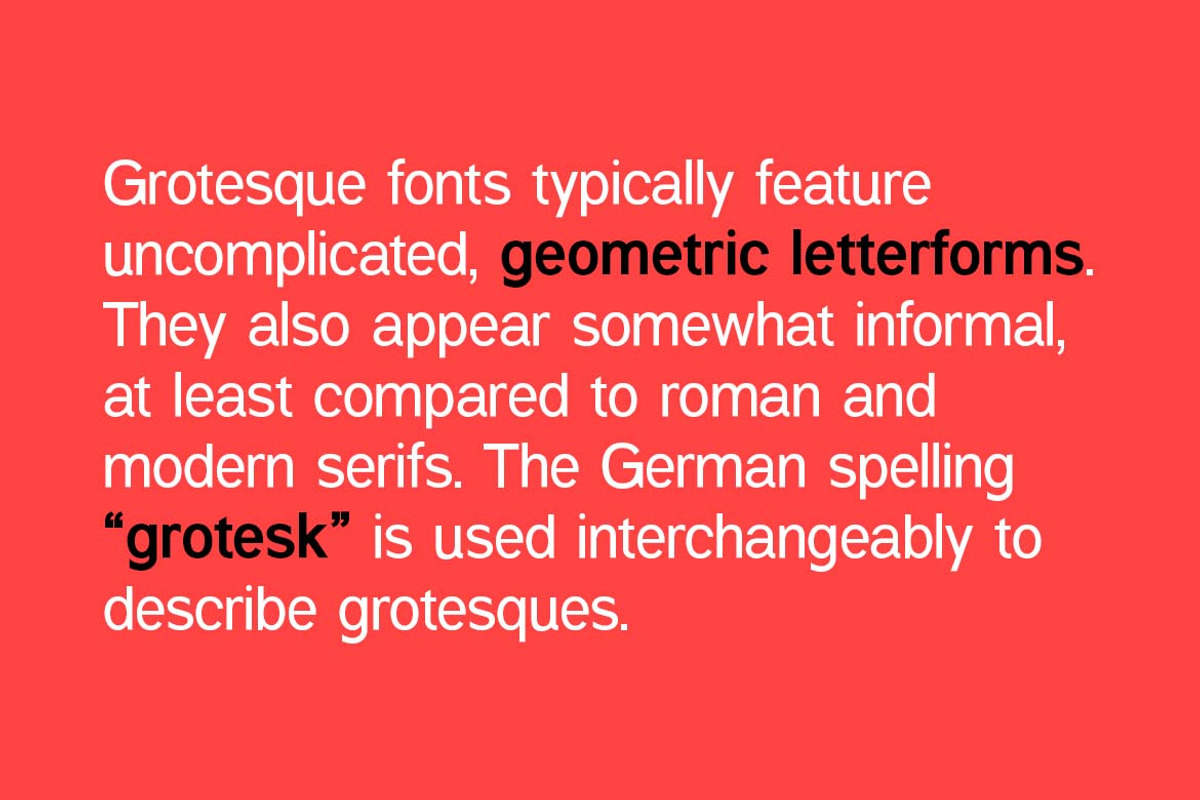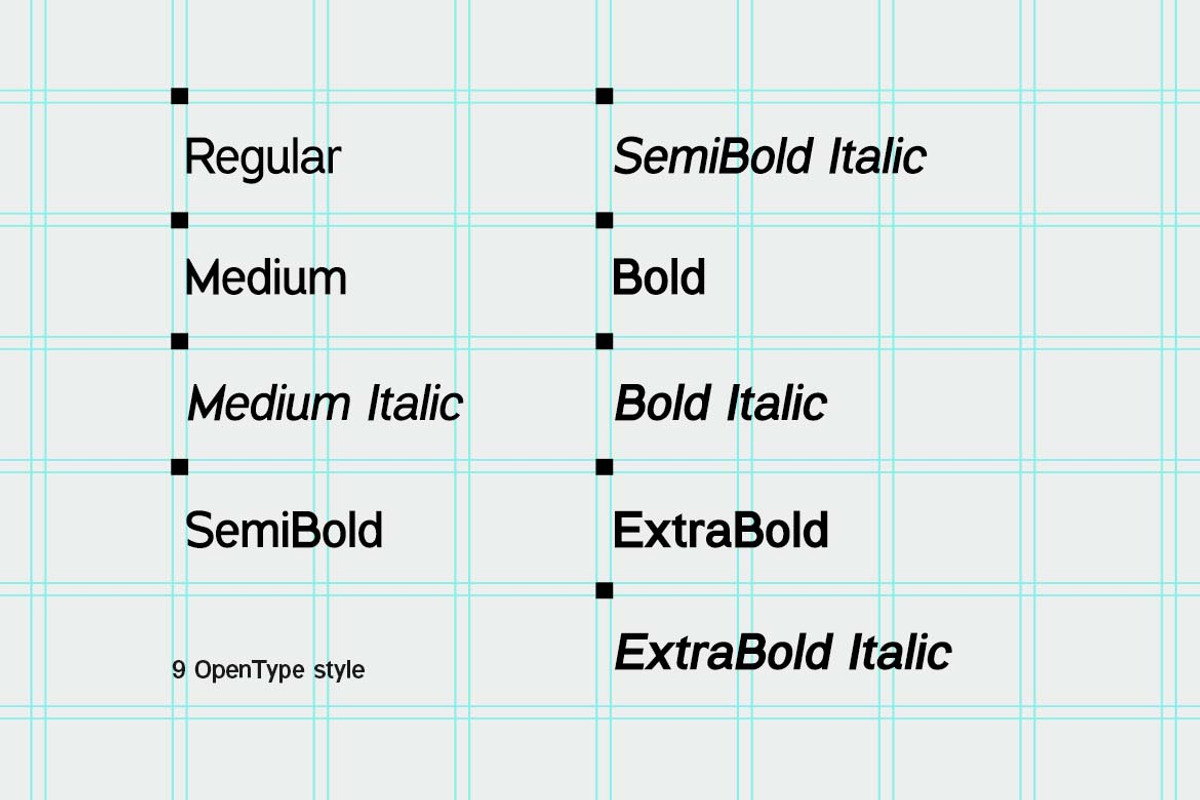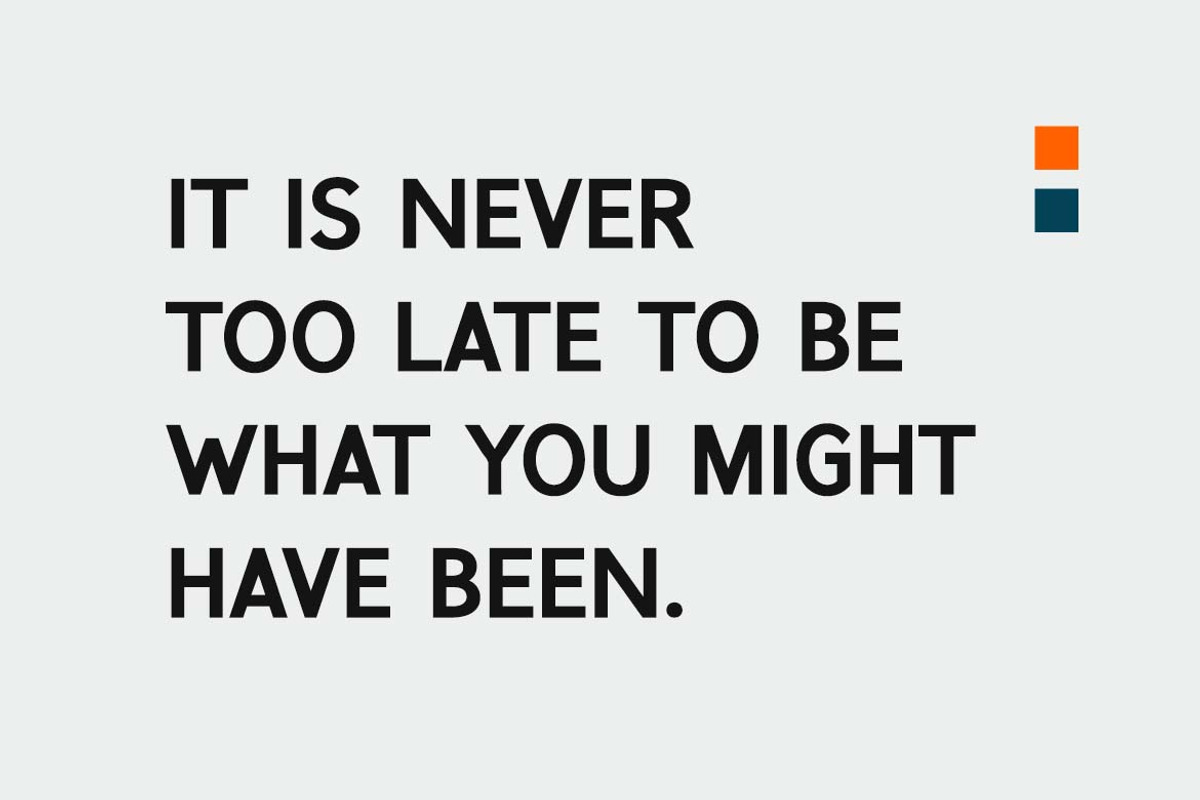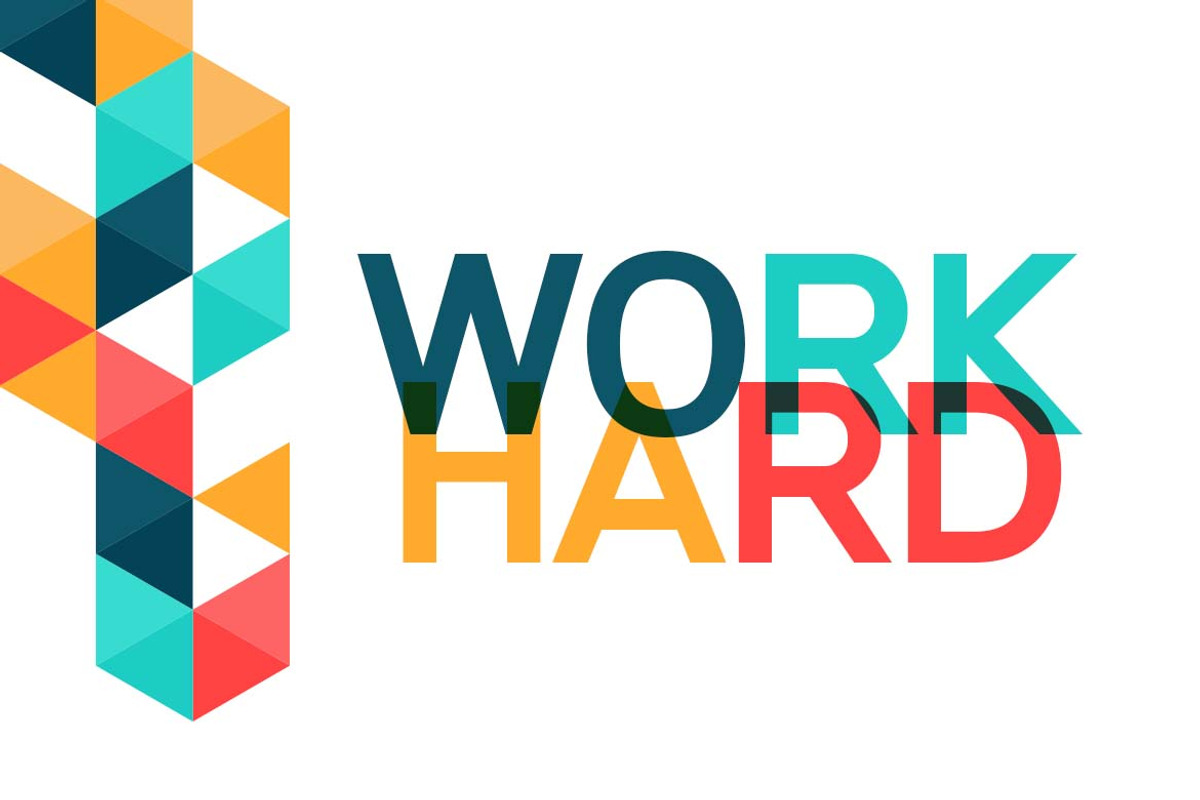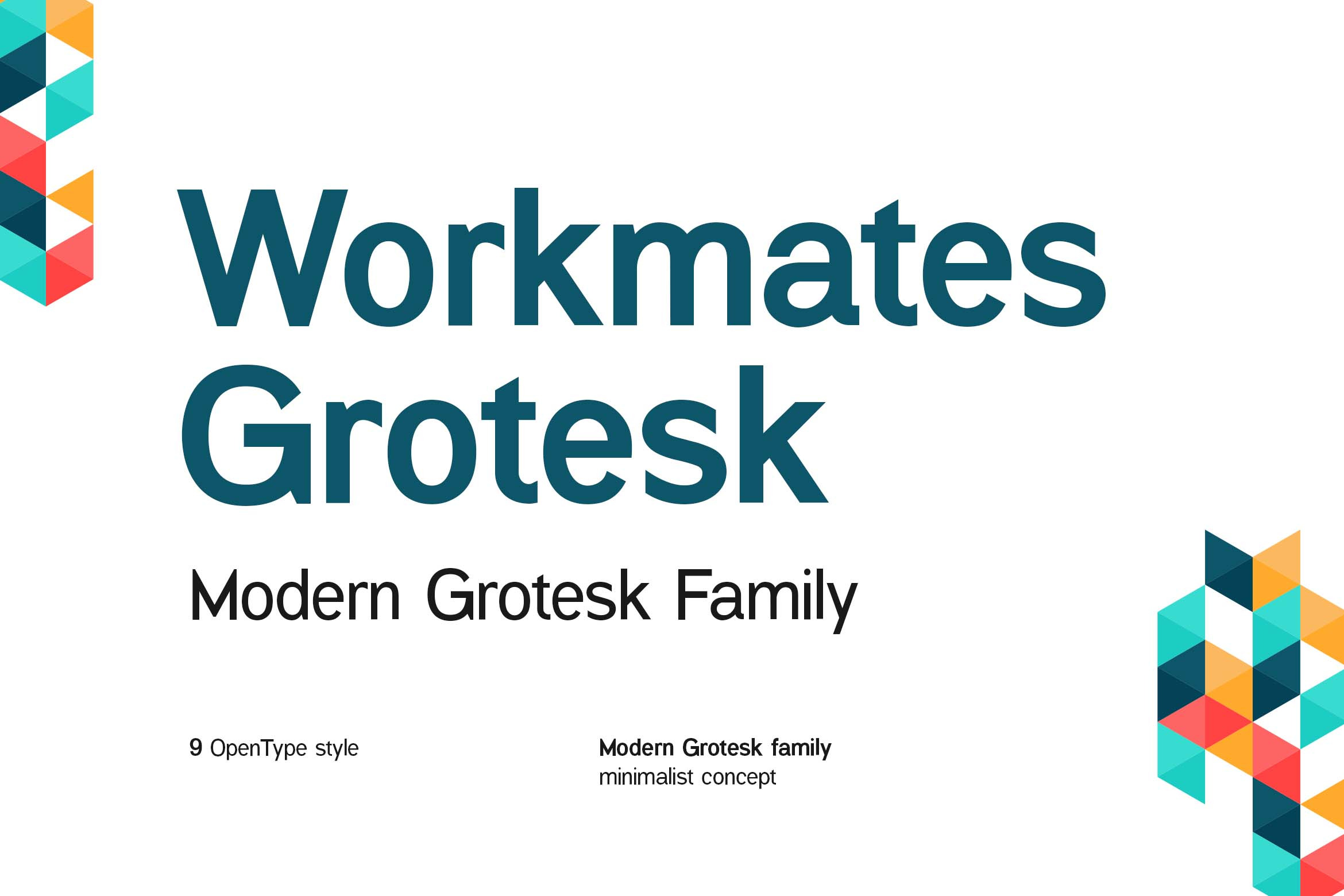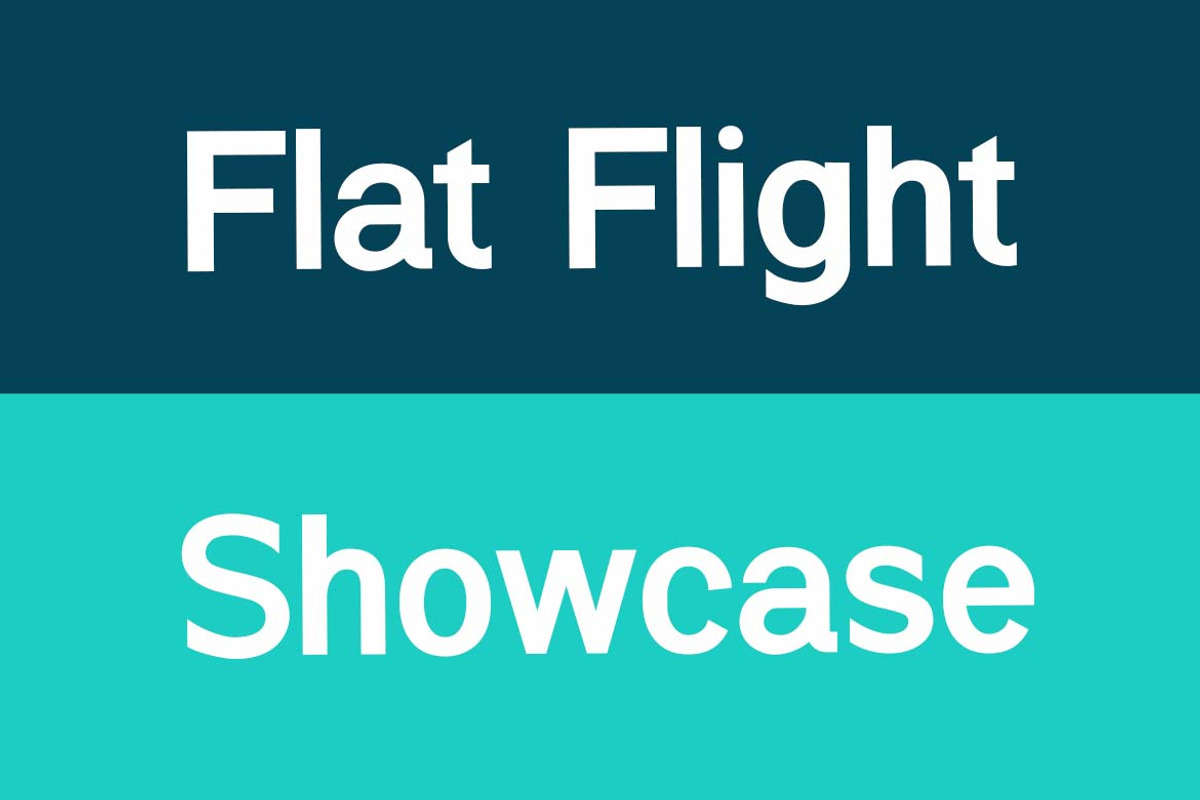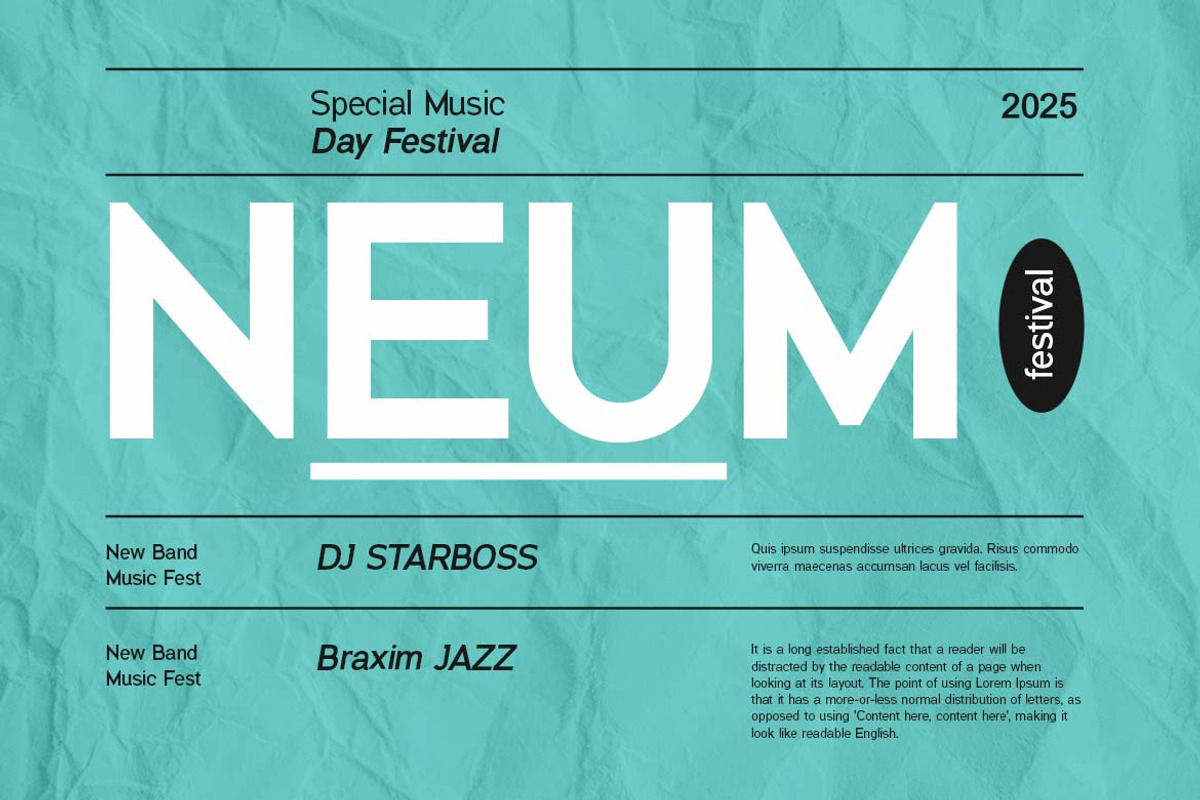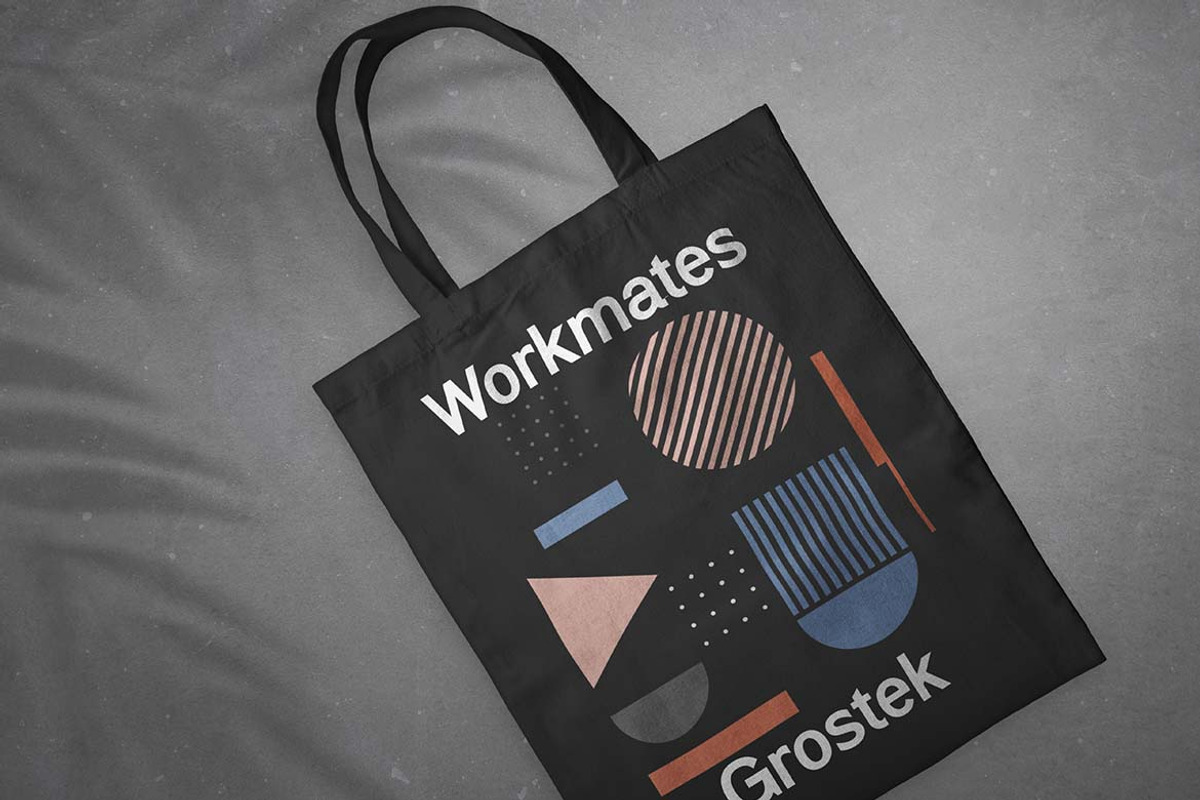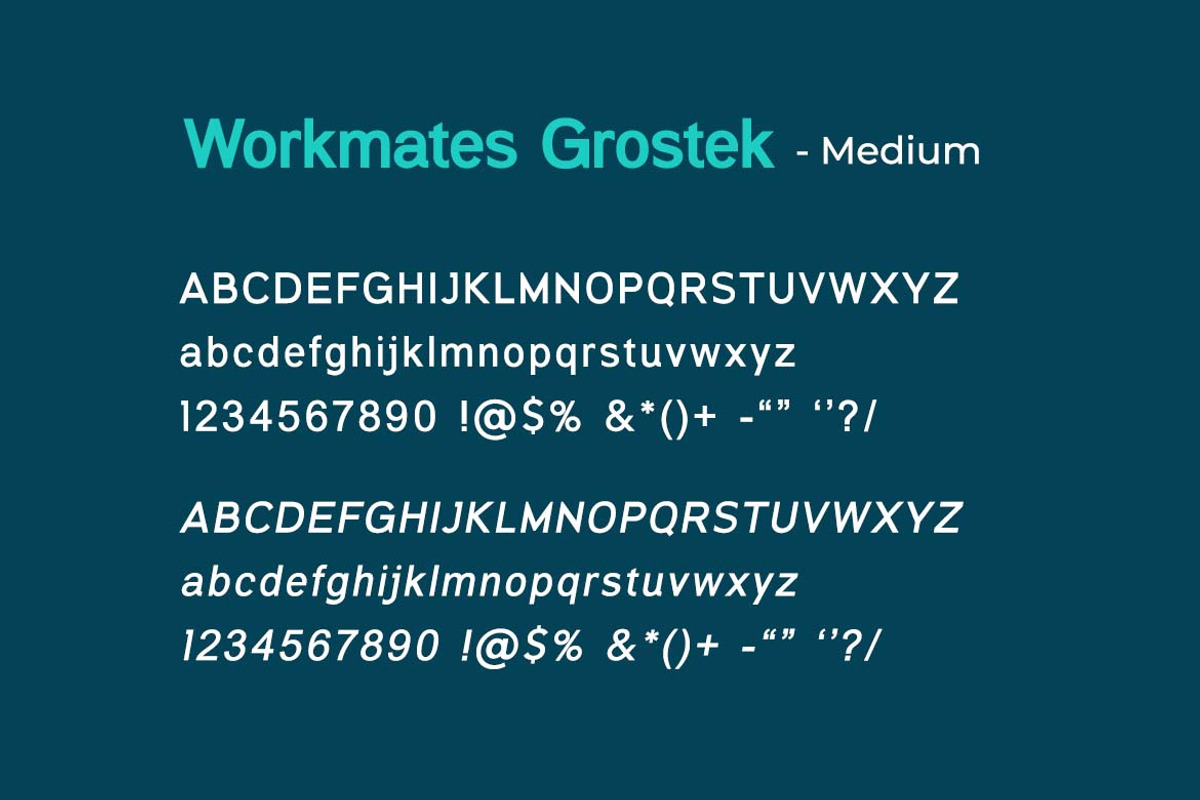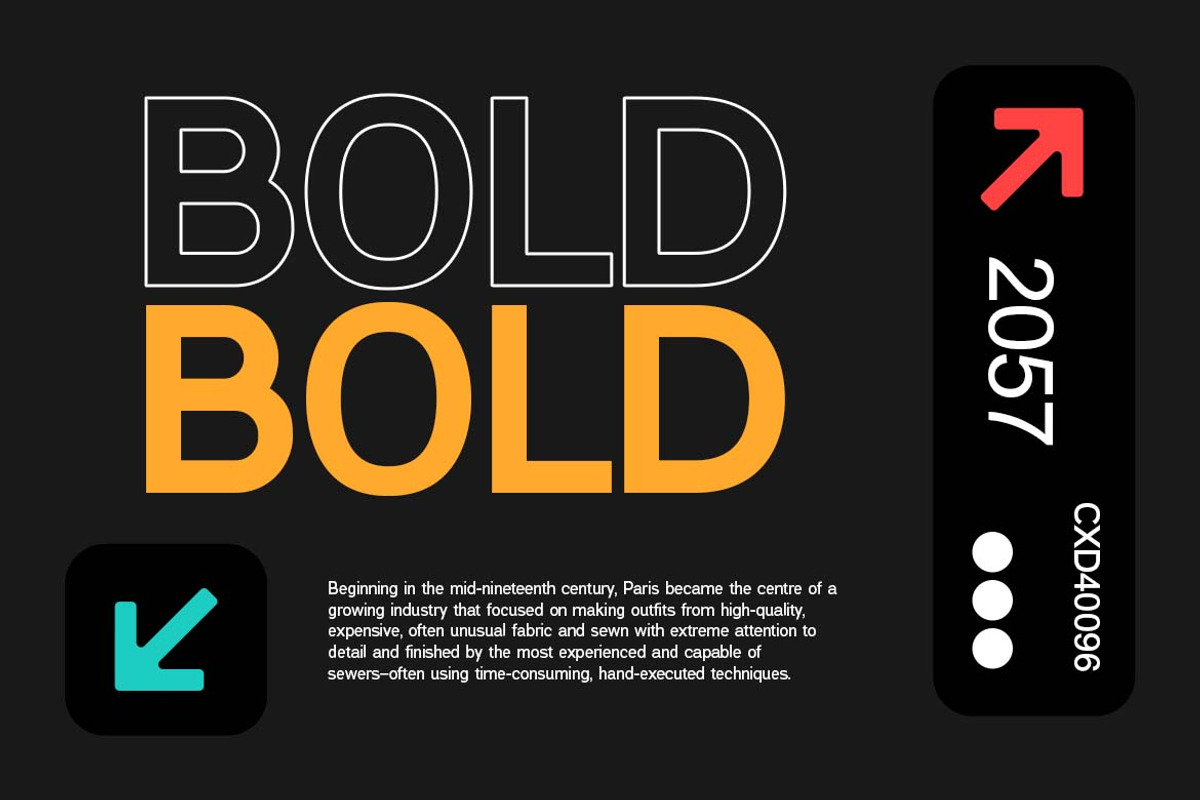
Workmates Modern Grotesk Family Font
Workmates Modern Grotesk Family Font. The modern display font feels beautiful classy, elegant, and stylish. This font is ideally suited for a wide variety of projects, such as signature, stationery, logo, wedding, typography quotes, magazine or book covers, website headers, branding, and more. Also, fashion-related branding or editorial design displays both masculine and feminine qualities.